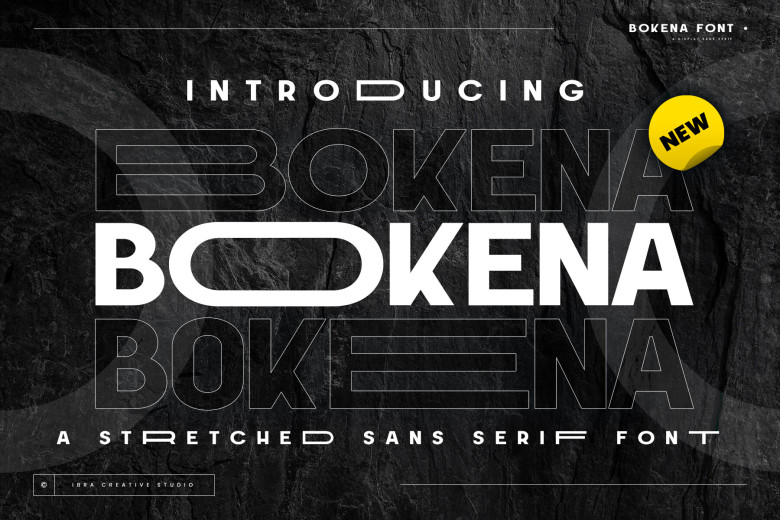
Bokena Font
Bokena is an elegant serif font which exudes style and timeless class. Bokena features delicate serifs with long and delicate lines to exude elegance and class, creating the ideal balance of thick and thin strokes which is pleasingly legible in all design projects – from premium branding, editorial designs, invitations or editorial spreads.
Bokena Sans Serif Font